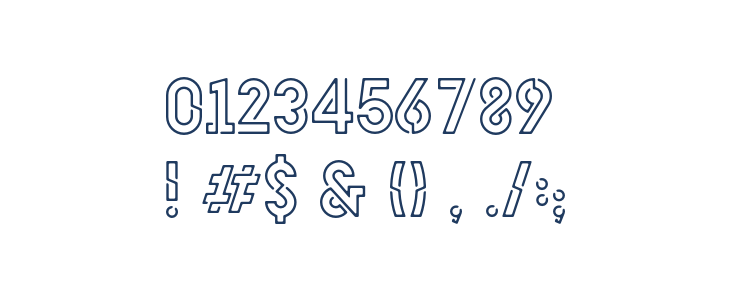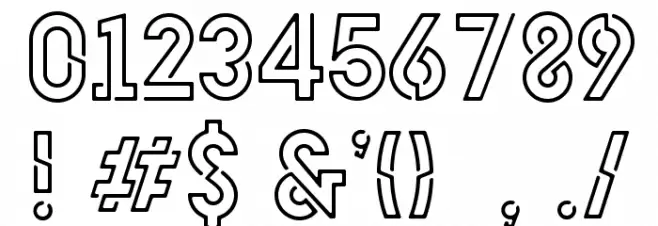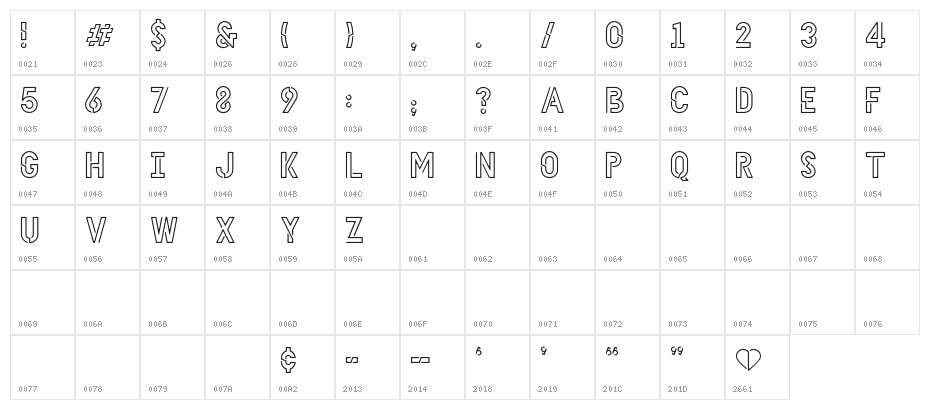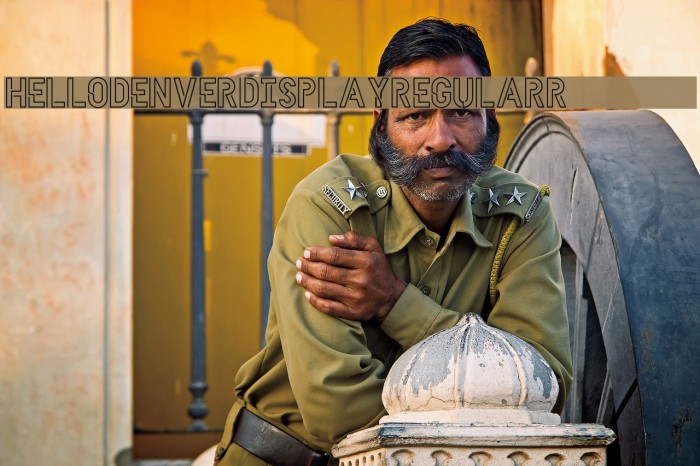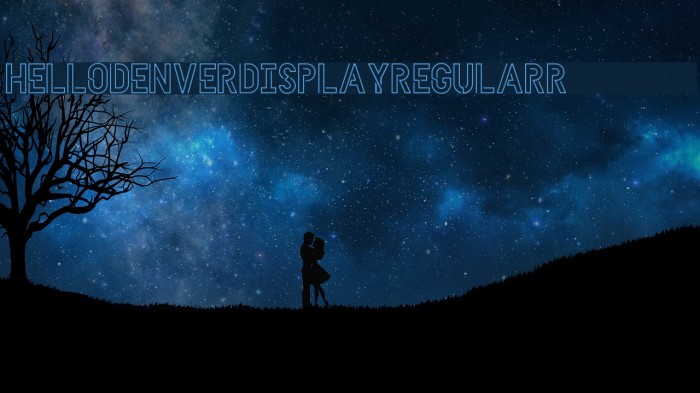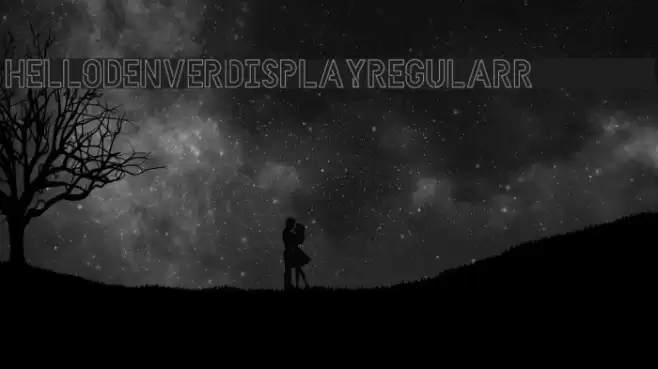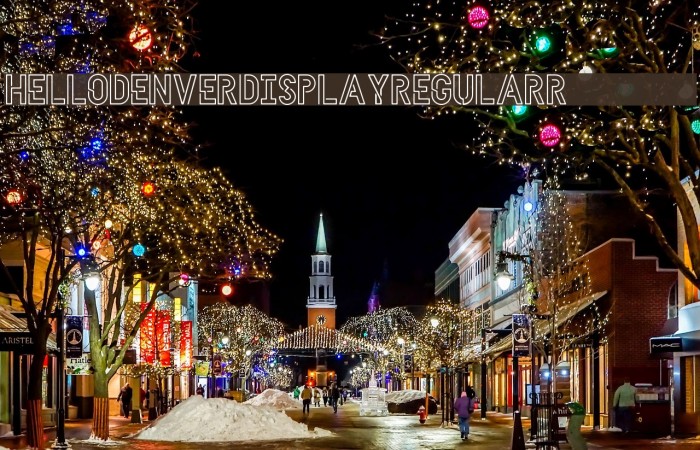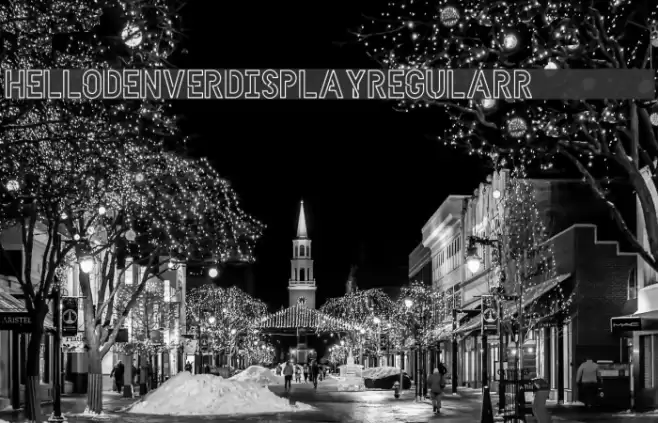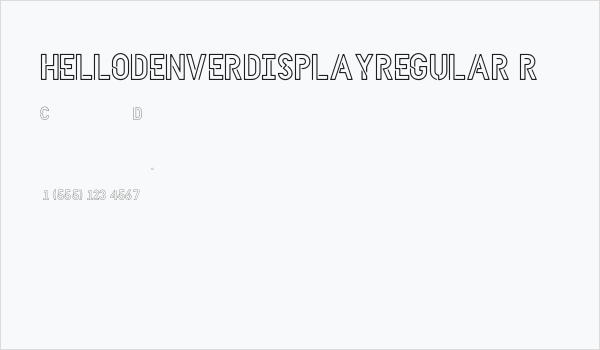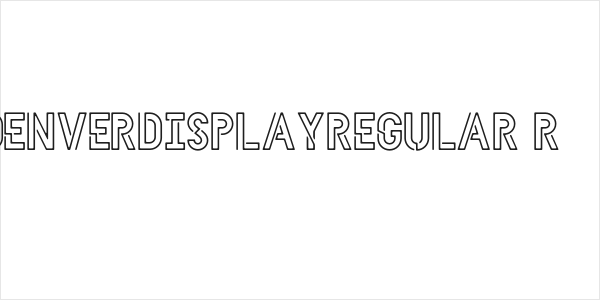
HELLODENVERDISPLAYREGULAR-Regular Font
HELLODENVERDISPLAYREGULAR-Regular Description
This font features a bold, geometric design with a modern and industrial feel. The characters are outlined, creating a hollow effect that adds depth and dimension. The uppercase letters are uniform in height, while the numerals and special characters maintain a consistent style. The font's structure is clean and precise, with sharp angles and straight lines that give it a contemporary edge. Its distinct appearance makes it suitable for eye-catching designs, where a strong visual impact is desired.